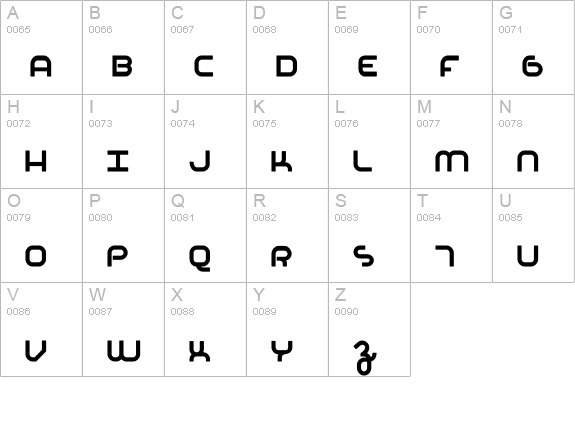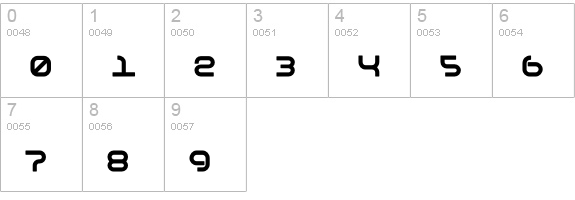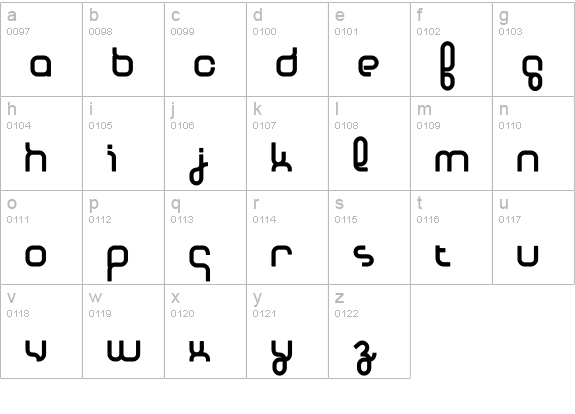
Basis-HeavyRound font is a bold and eye-catching typeface that exudes a modern and dynamic aesthetic. With its rounded edges and sturdy strokes, this font is perfect for making a statement in headlines, logos, and branding materials. The heavy weight of Basis-HeavyRound adds a sense of strength and impact to any design project. The best part is that Basis-HeavyRound font is completely free to download at FontsMarket.com. This means you can easily access this versatile and stylish font for your personal and commercial projects without any cost. Don't miss out on the opportunity to enhance your designs with the bold and distinctive look of Basis-HeavyRound font. Download it now and let your creativity shine!